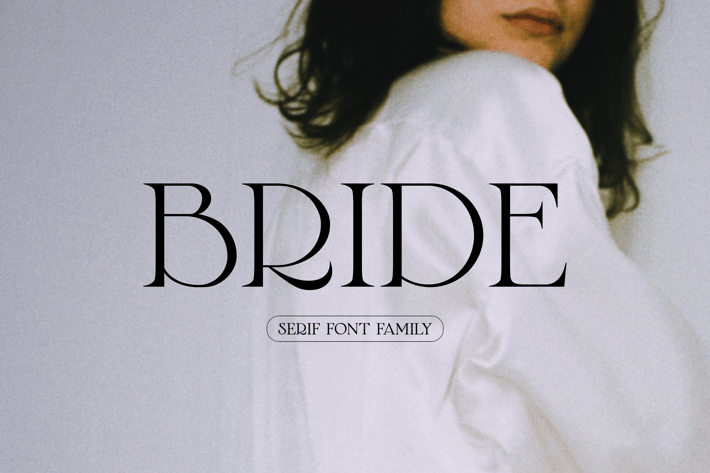
Bride Serif Font Family
Introducing my new Bride serif font family with elegant poetry style. Perfect for branding, wedding, logos, invitations and more.
Upper/lowercase, numbers, punctuations.
Regular, Italic, Bold, Alternates, etc.